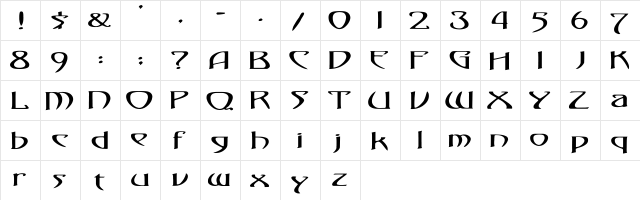
Gismonda Ex Regular
Design Context for Gismonda Ex Typeface
Gismonda Ex is a composed and adaptable typeface that performs quietly and consistently across a wide range of design contexts.